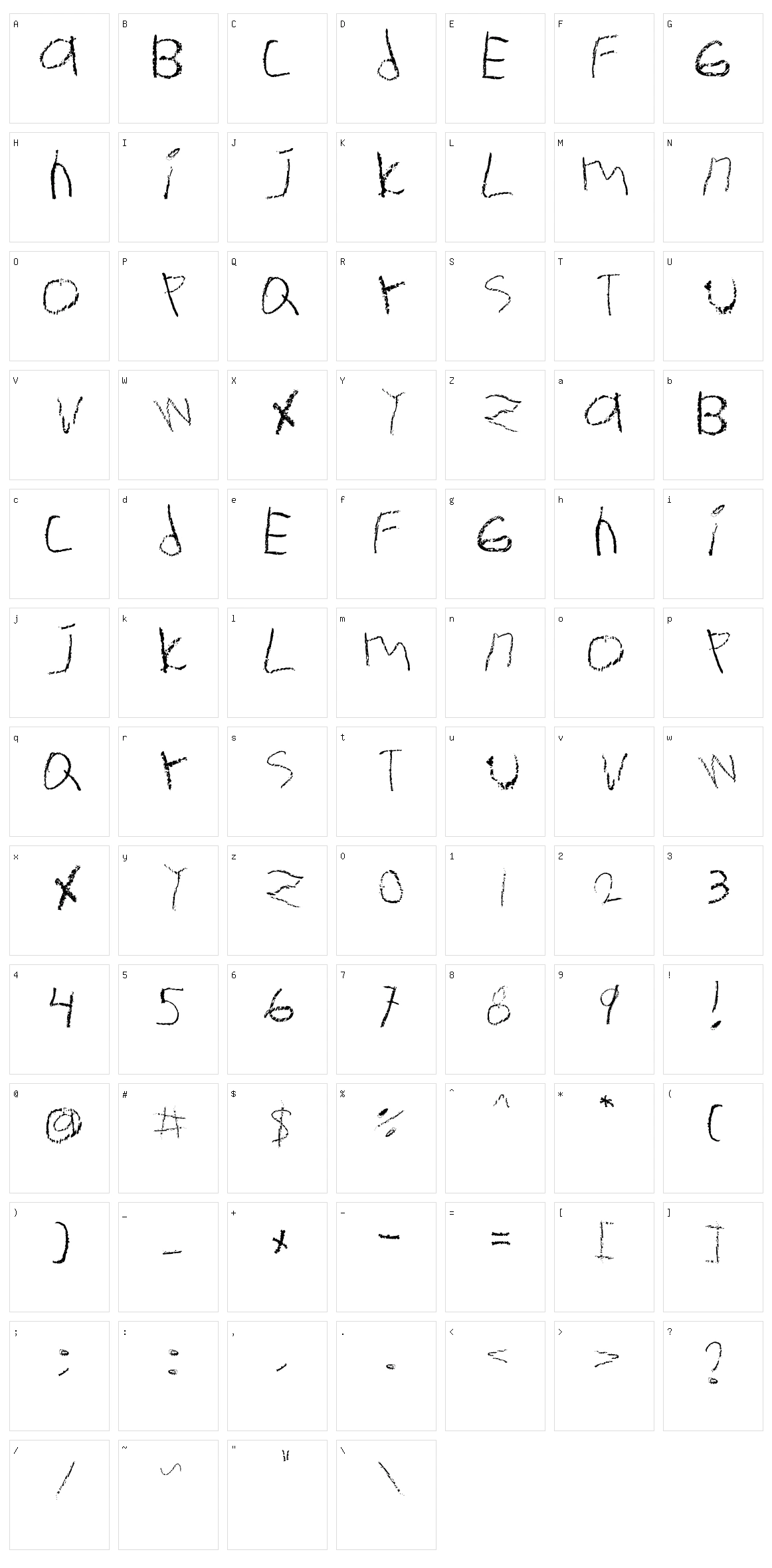
realmente la hic con mucho
cariño y su fin principal
aparte del que tu le des es
compartirles mi escencia es
recordar mi primer trazo mis
primeros...